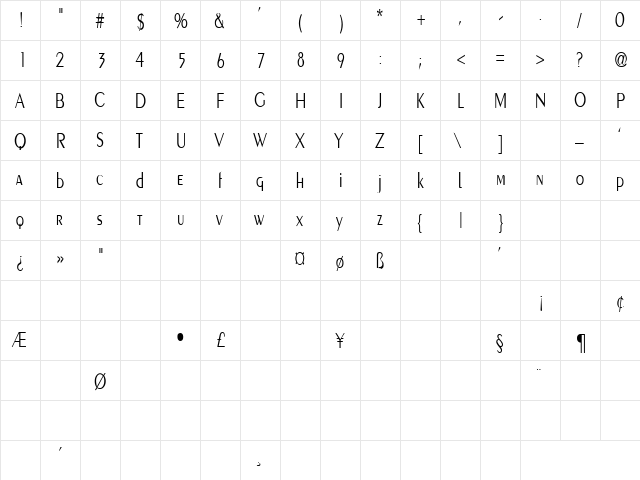
Custard Pie 4 Regular Font Preview
Custard Pie 4 Regular
Design Context for Custard Pie 4 Typeface
Custard Pie 4 takes a measured approach to typography — its balanced proportions and neutral character make it a reliable workhorse for both digital and print work.